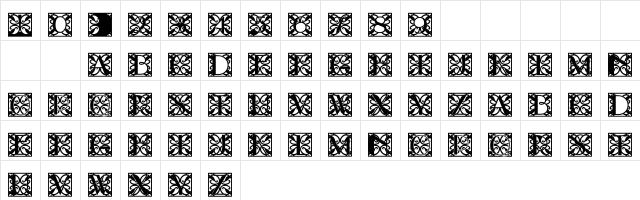
101! Ornate Display Alpha Regular
Design Context for 101! Ornate Display Alpha Typeface
101! Ornate Display Alpha is built around its visual character rather than neutral utility — its distinctive forms are designed to make an impression at display sizes.
Font Pairing: Pair with a clean neutral sans-serif for body copy to let 101! Ornate Display Alpha's character lead without overwhelming the composition.
Pro Tip: Treat 101! Ornate Display Alpha as the centrepiece of your typographic hierarchy. One strong heading set in a decorative face can carry an entire layout.